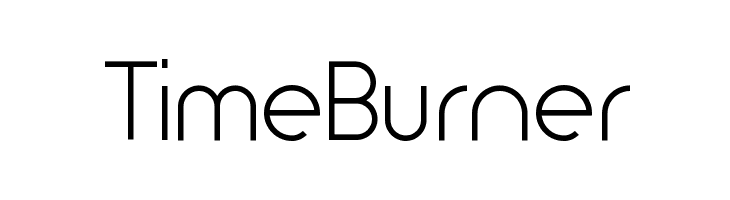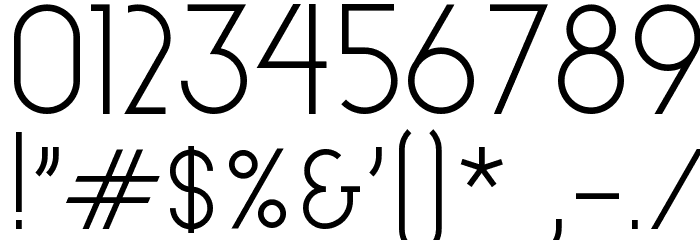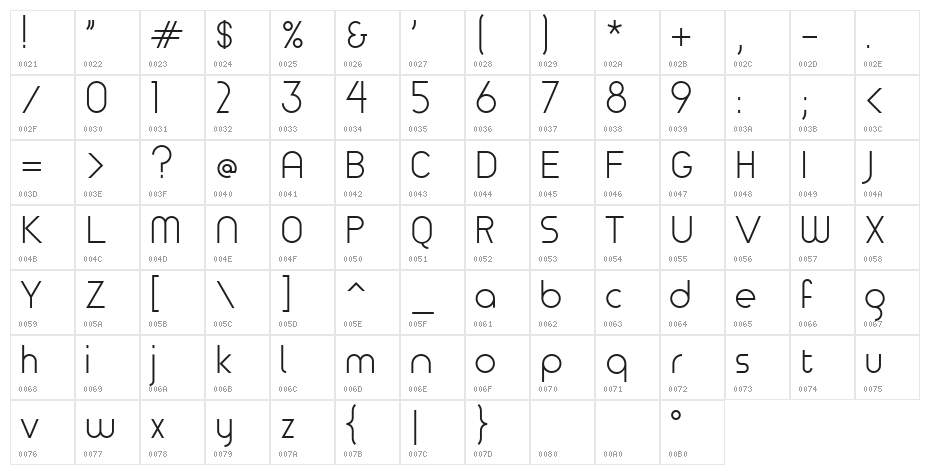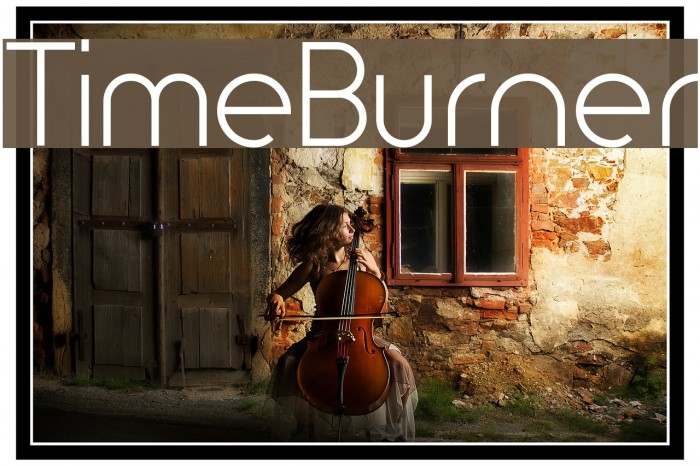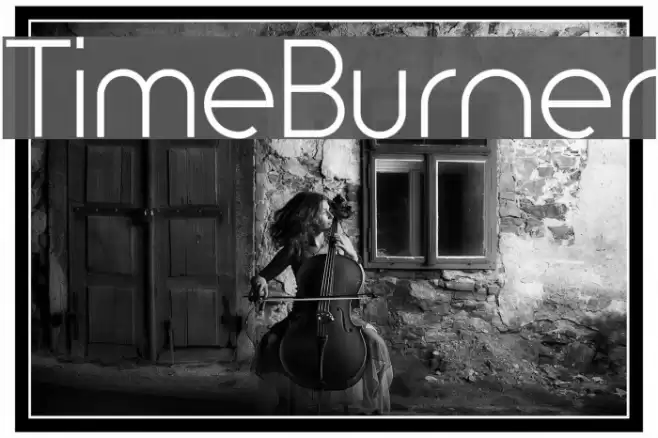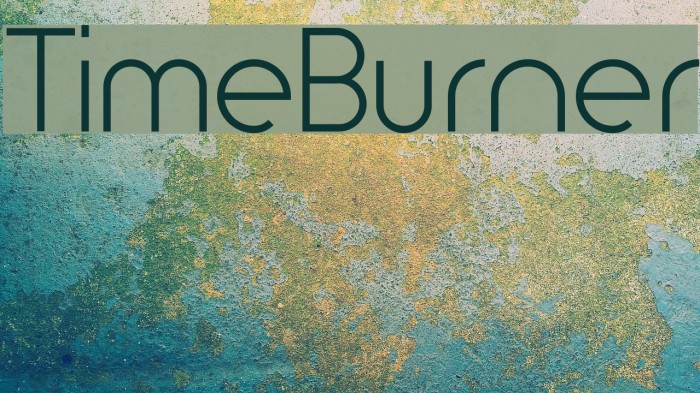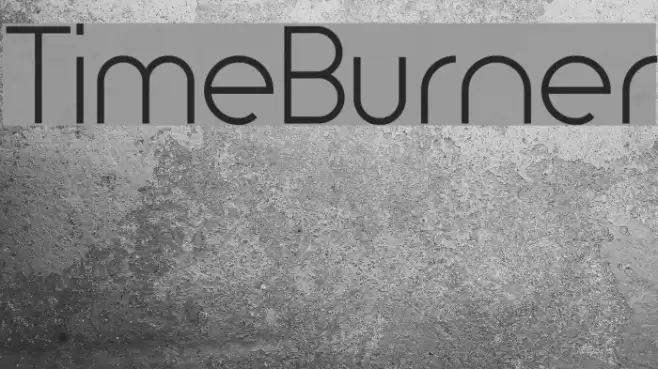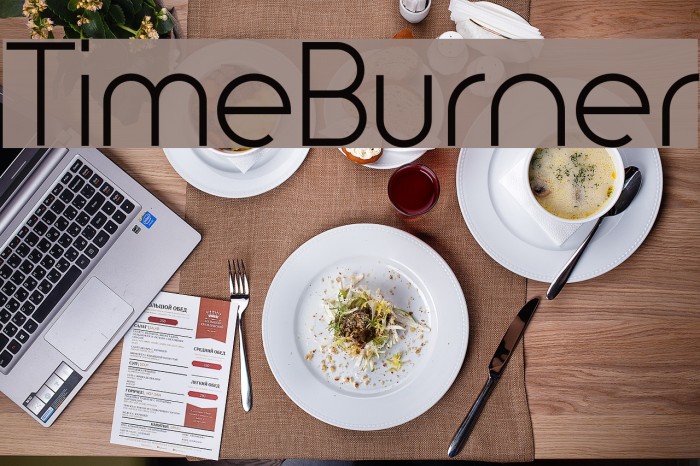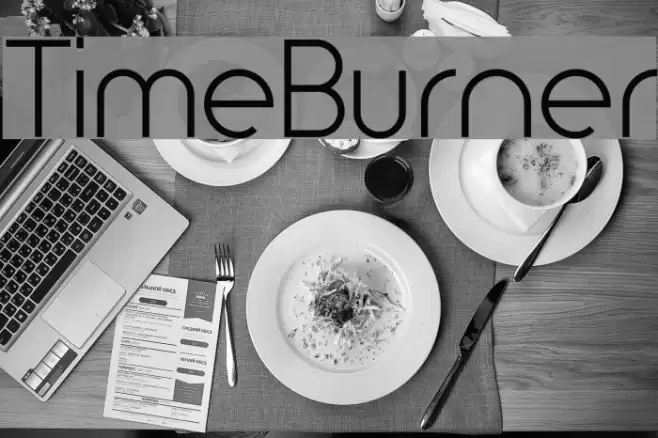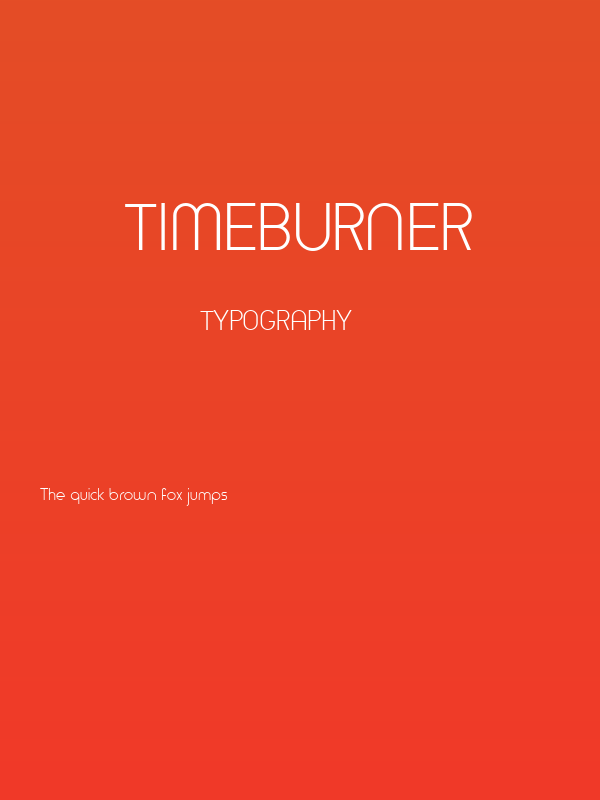
TimeBurner Font
TimeBurner Description
This font features a sleek, modern design with a geometric structure. The characters are clean and rounded, providing a futuristic and minimalist aesthetic. The uppercase letters are uniform in height, while the lowercase letters maintain a consistent baseline, enhancing readability. The numerals are distinct and align well with the overall style, making them suitable for digital displays. Special characters are well-integrated, maintaining the font's cohesive look. The overall appearance is both professional and approachable, making it versatile for various applications.
| Use Case | Headlines, Digital interfaces, Branding |
| Proposed Projects | Ideal for tech branding, digital interfaces, modern advertising, and minimalist design projects. |